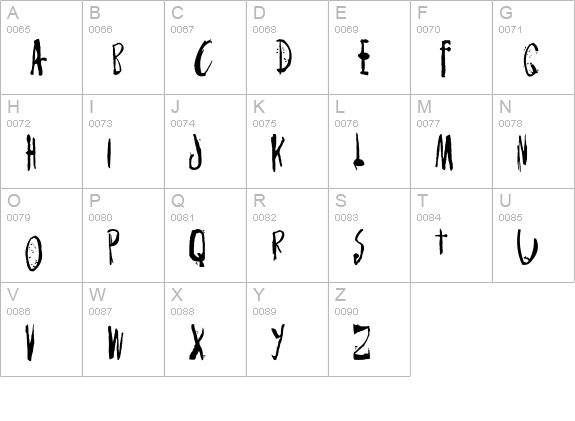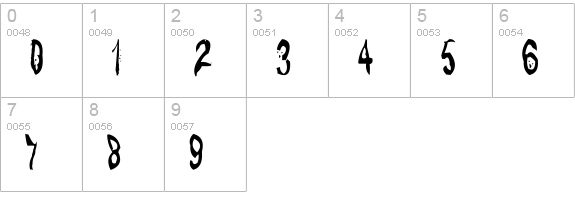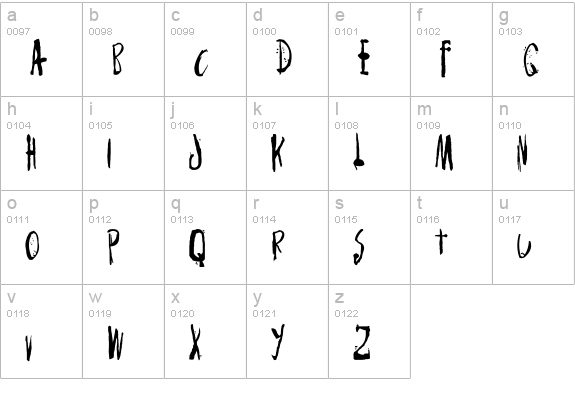
Monsterchild Font Details
Introducing Monsterchild font - a whimsical and playful typeface that is perfect for adding a touch of fun to your projects. With its unique and quirky design, Monsterchild is sure to make your text stand out and capture the attention of your audience. This font is versatile and can be used for a variety of purposes, from branding to invitations to social media posts. The best part? Monsterchild font is completely free to download at FontsMarket.com! So go ahead and unleash your creativity with this delightful font that is sure to bring a smile to everyone's face. Download it now and start creating engaging and eye-catching designs with Monsterchild font.